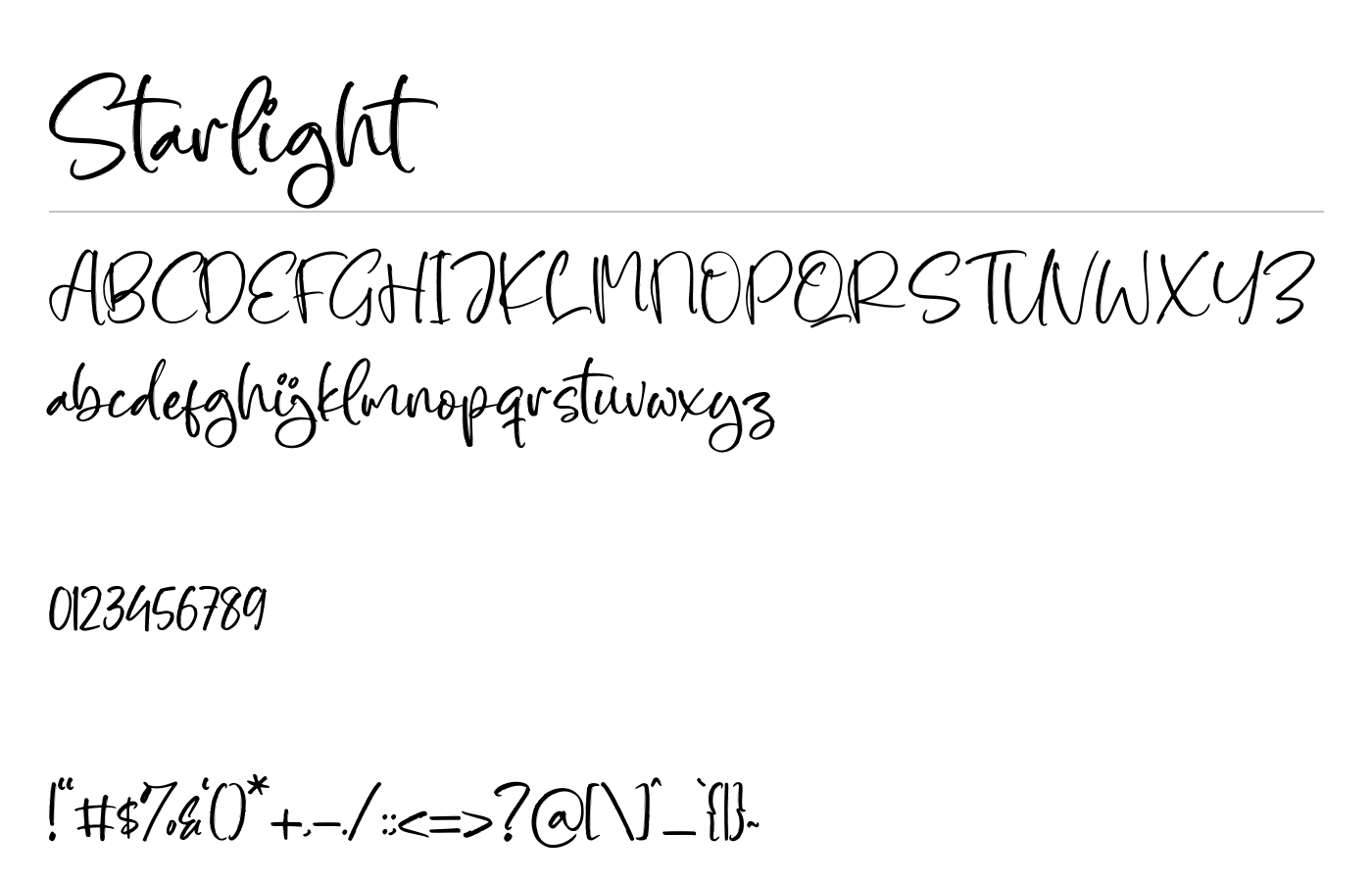
Starlight is a playful, handwritten script font with a casual and friendly vibe, featuring thin, slightly uneven strokes that mimic natural penmanship. Its tall x-height and open letterforms make it readable while adding a personal, creative touch, perfect for creative branding, invitations, and lifestyle projects. This font shines in contexts where a warm, approachable, and artistic feel is desired.
Starlight Font
About Starlight Font